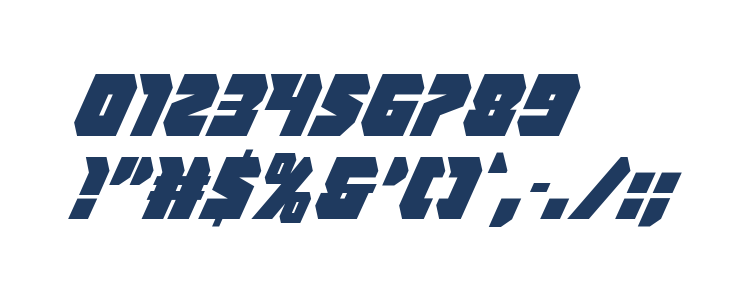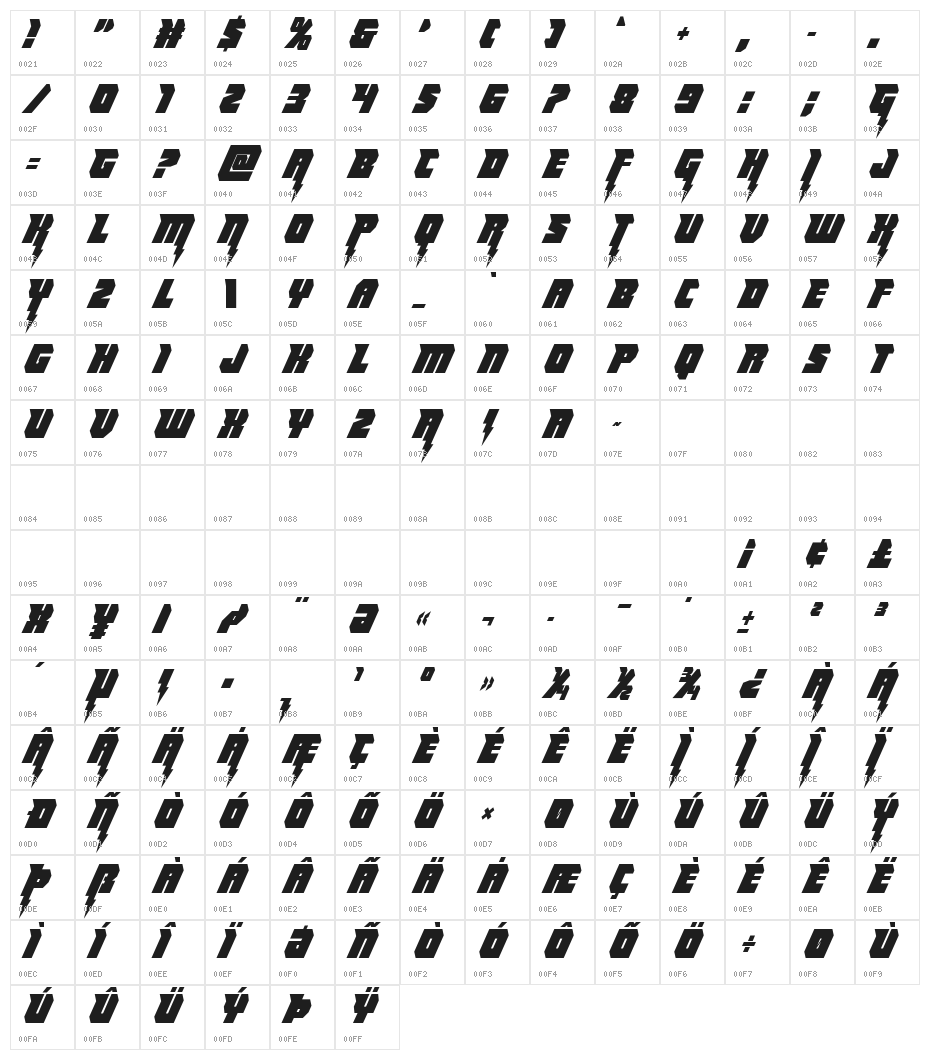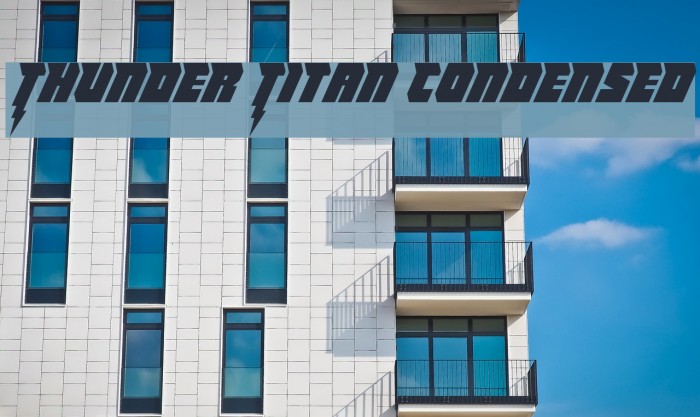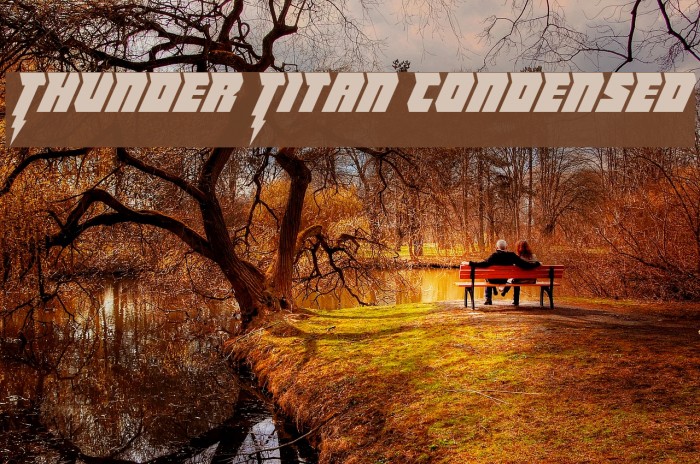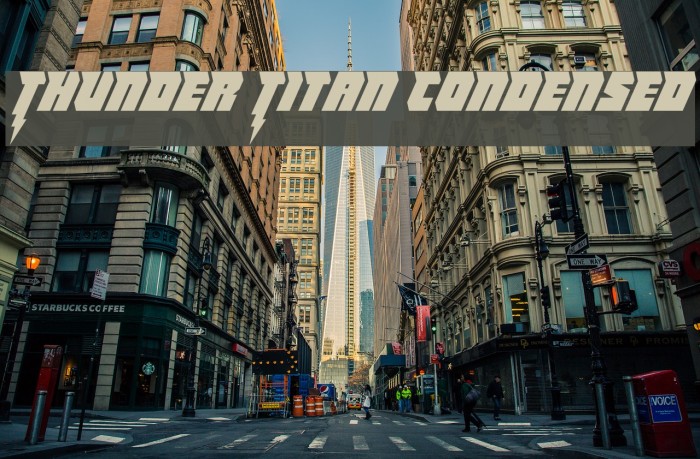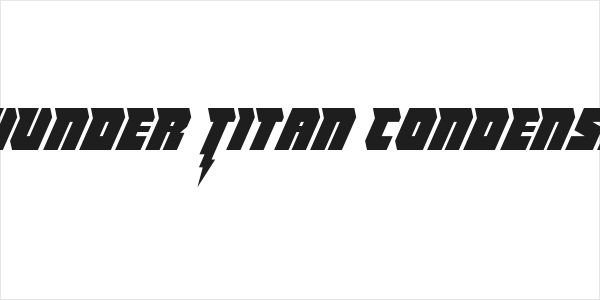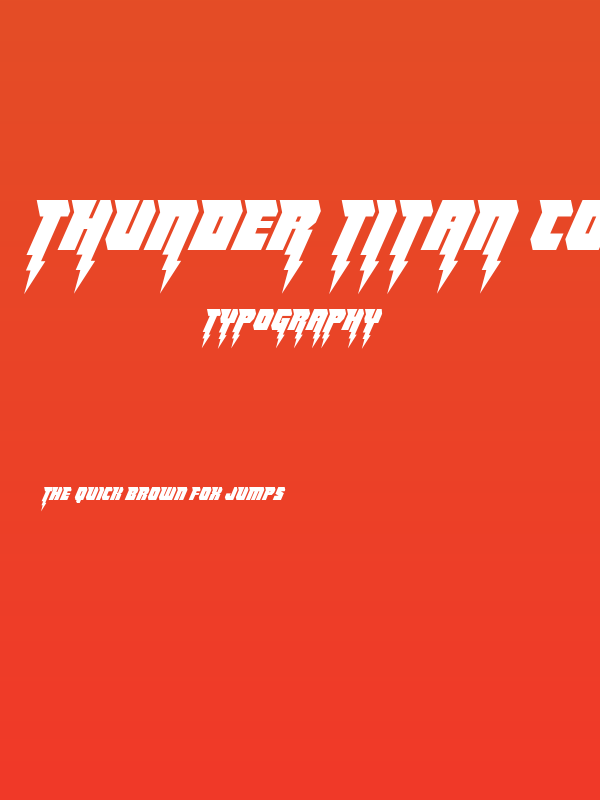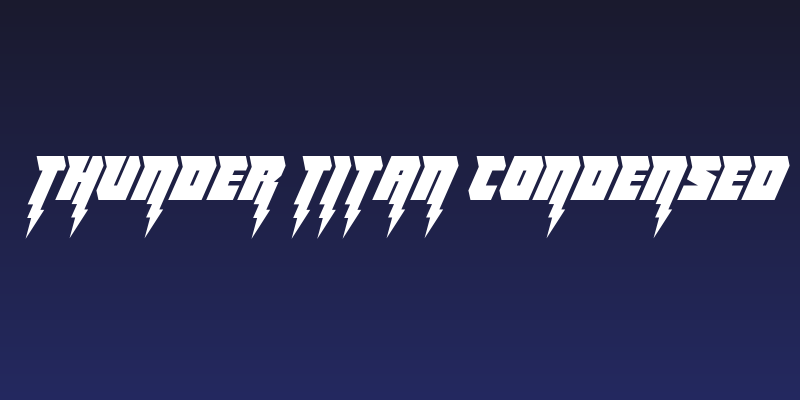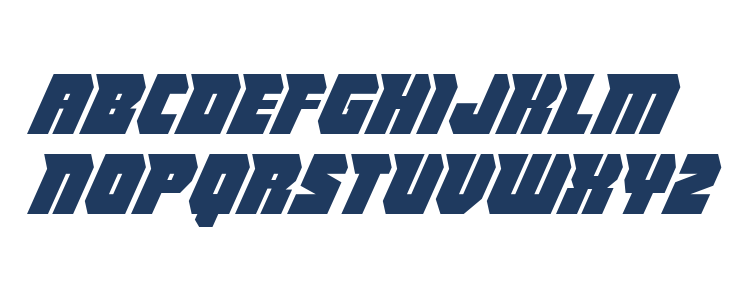
Thunder Titan Condensed Font
Thunder Titan Condensed Description
This font features a bold, dynamic style with a distinctive lightning bolt motif integrated into each character. The angular, geometric shapes give it a powerful and energetic appearance, making it ideal for attention-grabbing designs. The uppercase letters are particularly striking, with sharp edges and a condensed form that enhances the dramatic effect. The numbers and special characters maintain this bold aesthetic, ensuring consistency across all elements. The font's unique design makes it suitable for projects that require a strong visual impact.
| Proposed Projects | Ideal for sports team logos, music album covers, action movie posters, and any project requiring a bold, energetic typeface. |